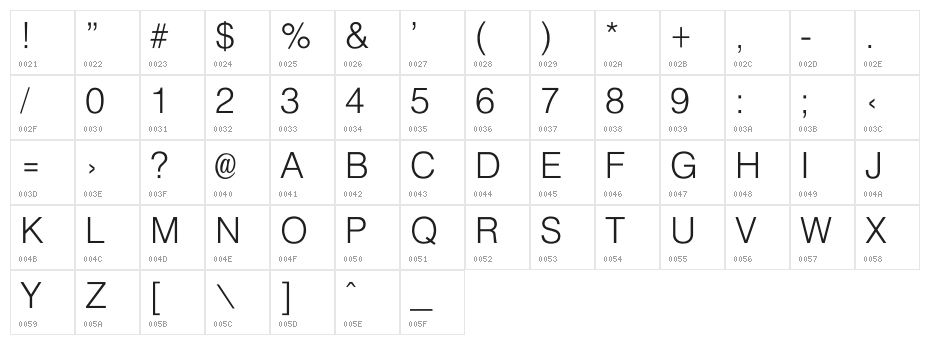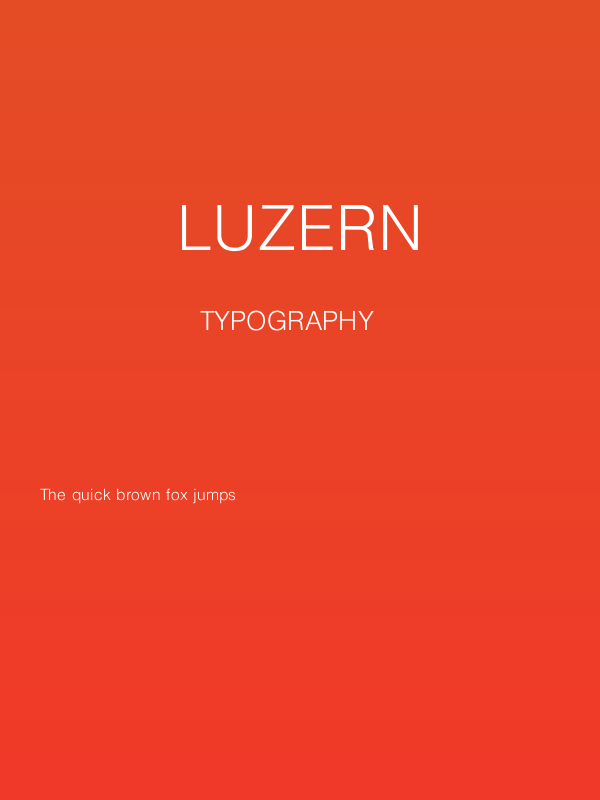
Luzern Font
Luzern Description
This font features a clean and modern sans-serif style, characterized by its simplicity and readability. The letters are evenly spaced with a consistent stroke width, offering a balanced and harmonious appearance. The uppercase letters are bold and commanding, while the lowercase letters maintain a friendly and approachable look. The numerals are clear and distinct, making them easily legible. Special characters are well-integrated, maintaining the overall aesthetic of the font. This typeface is versatile, suitable for a wide range of applications from digital to print media.